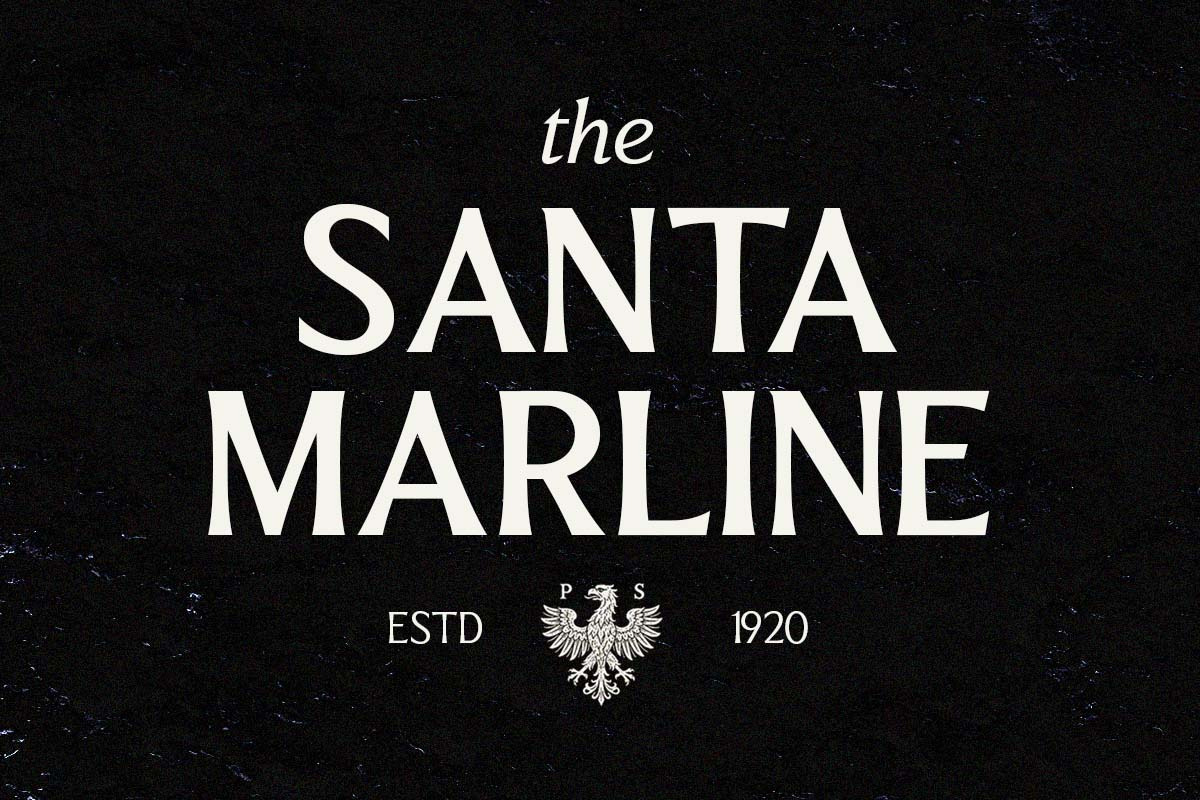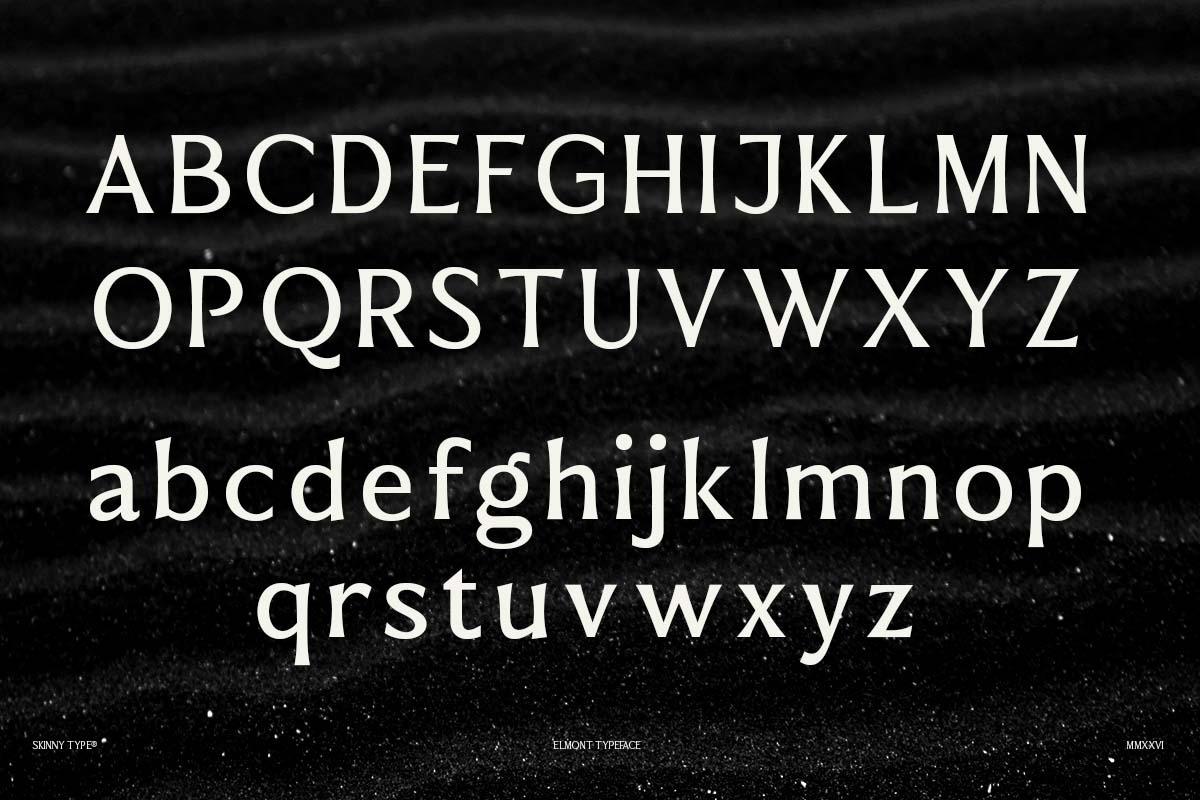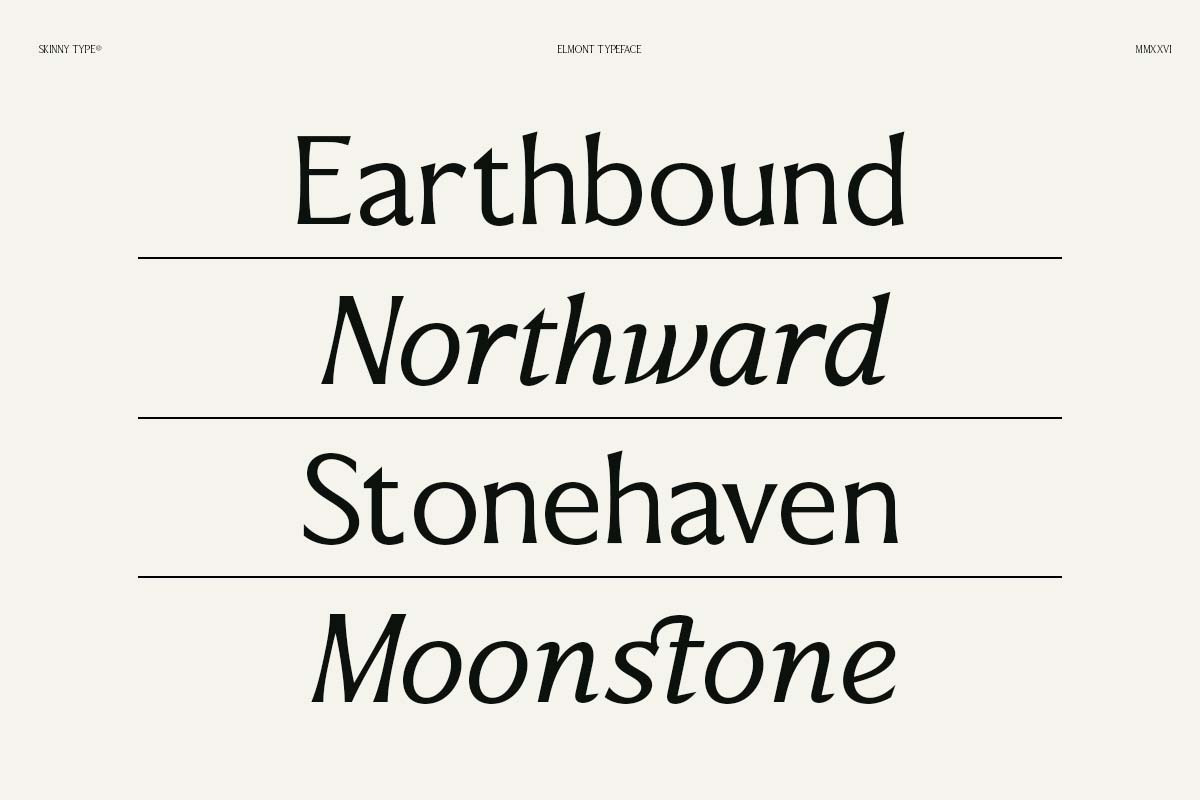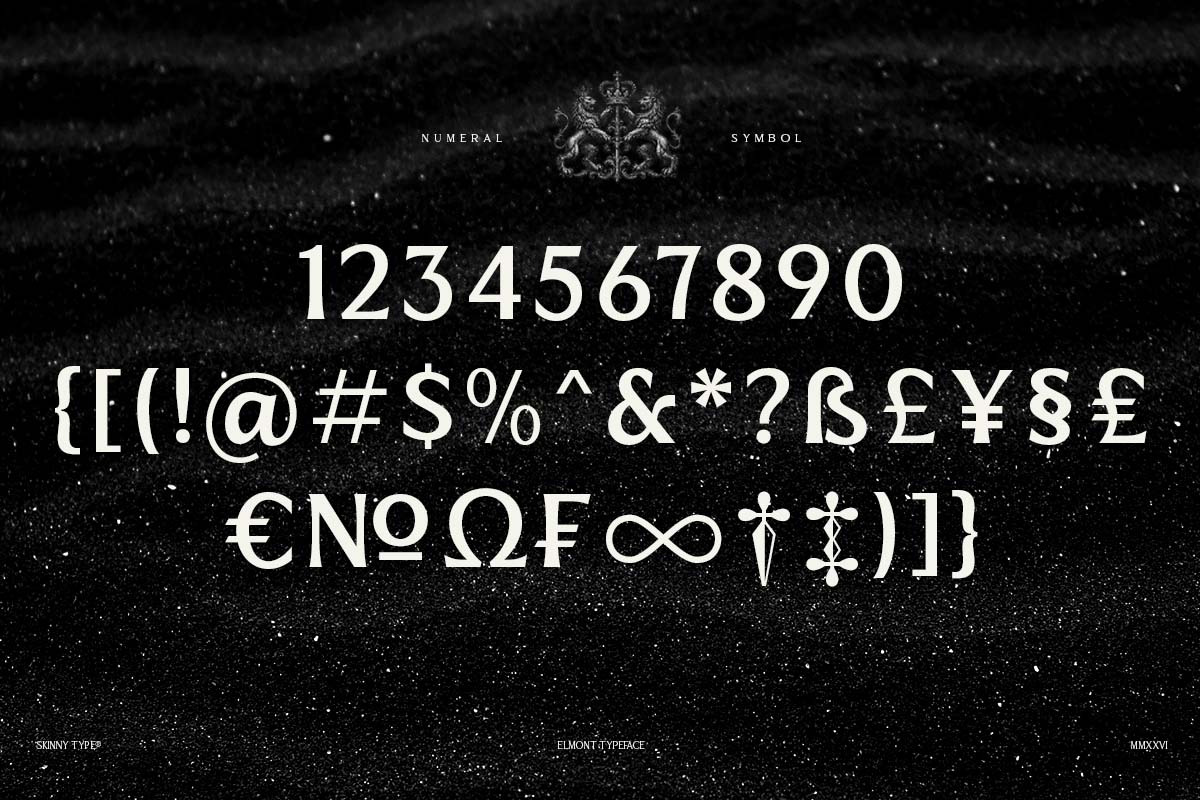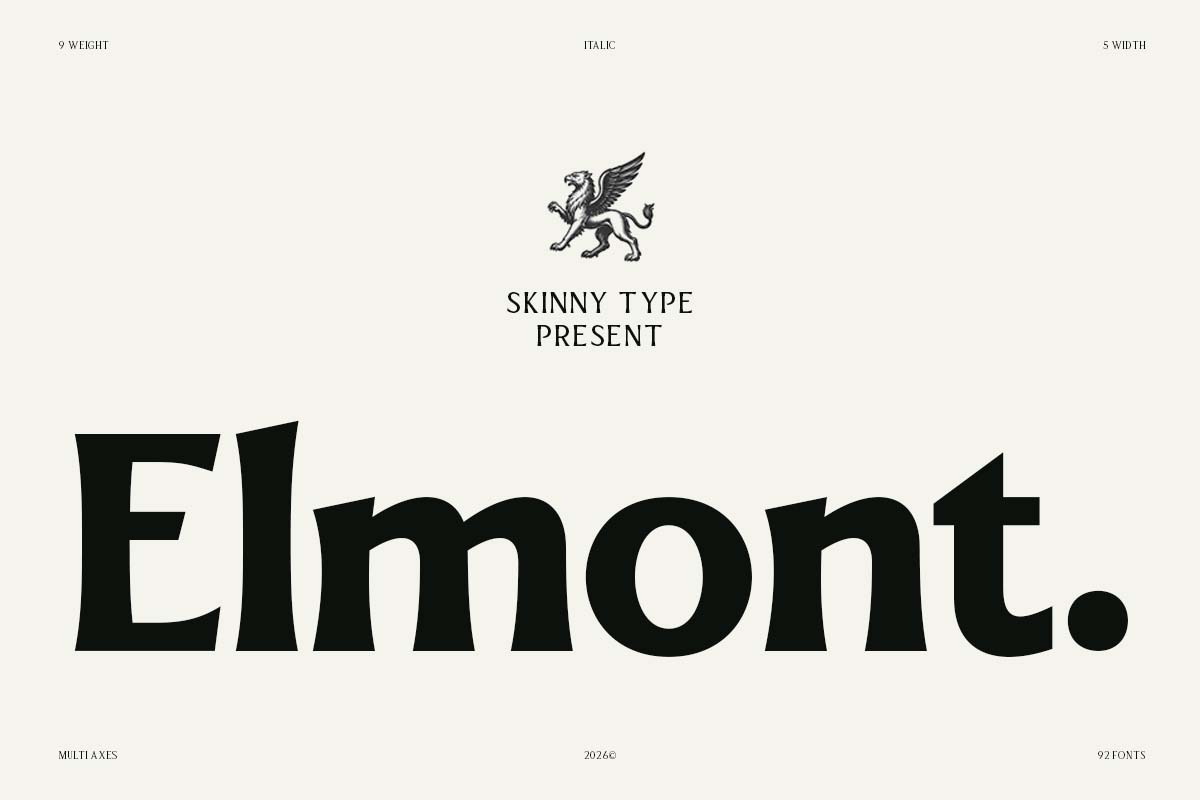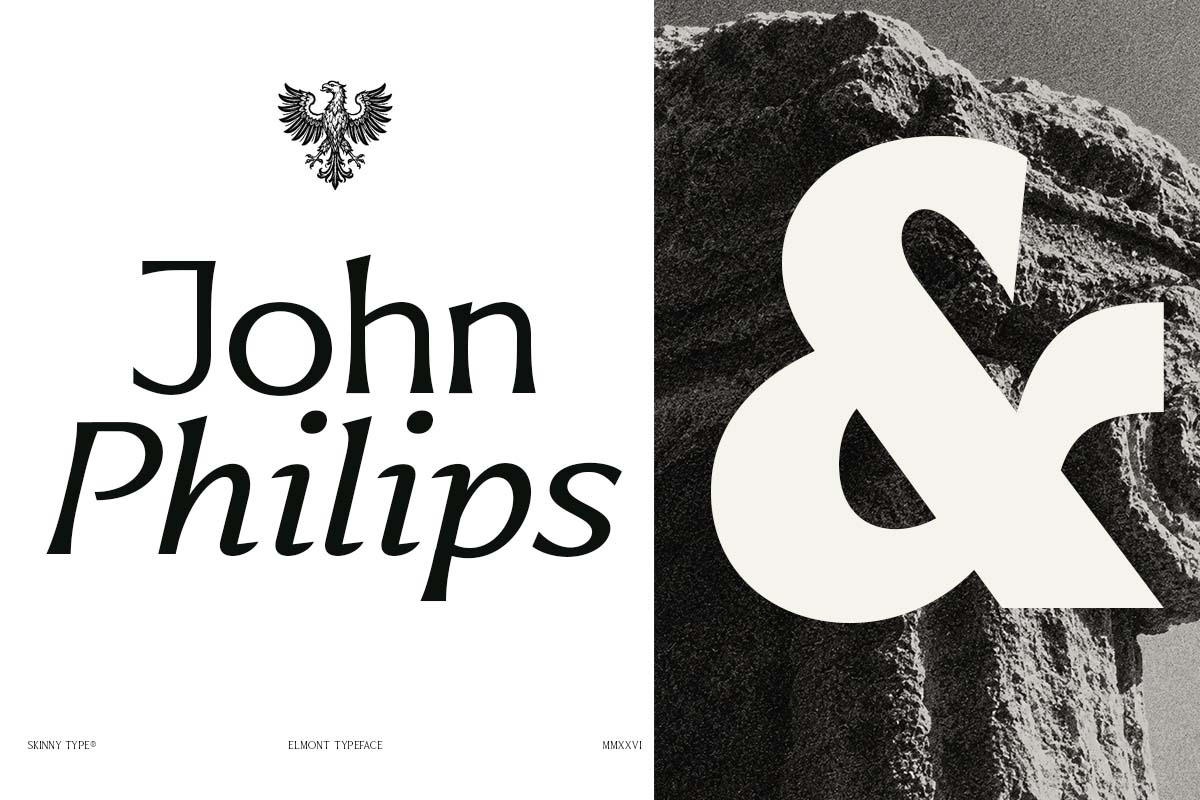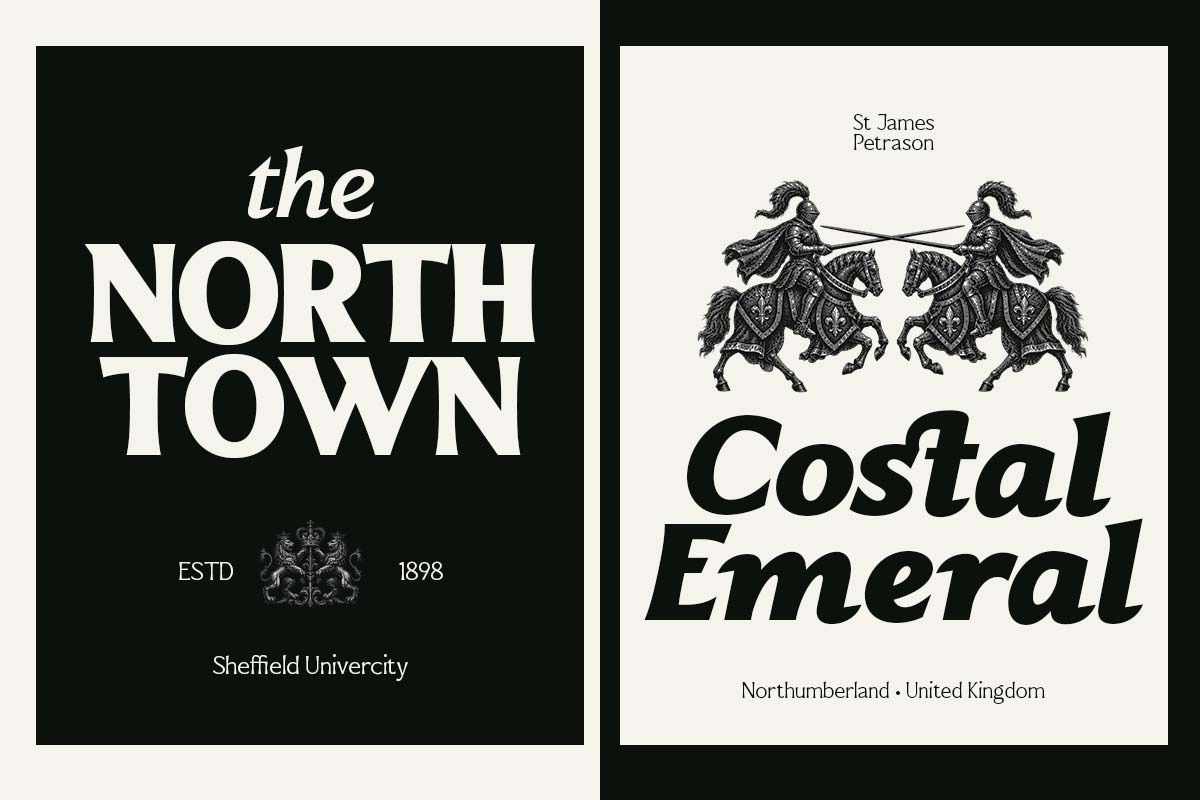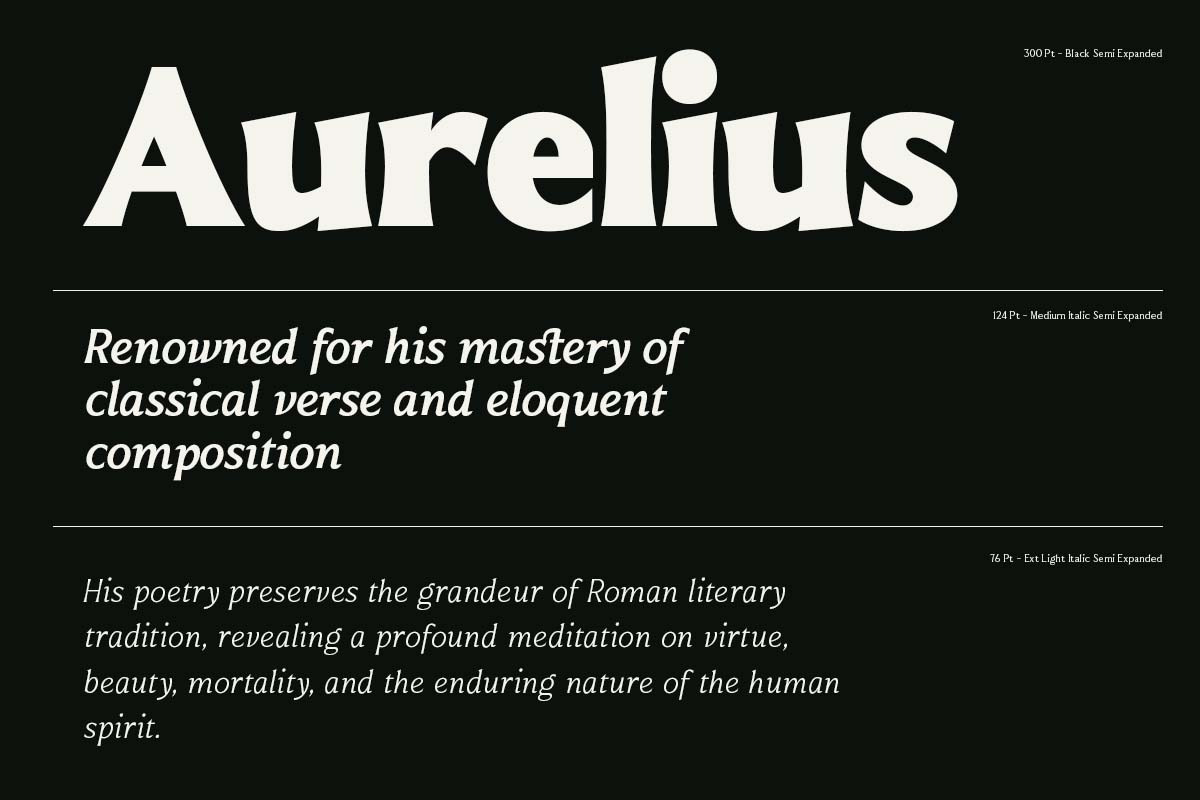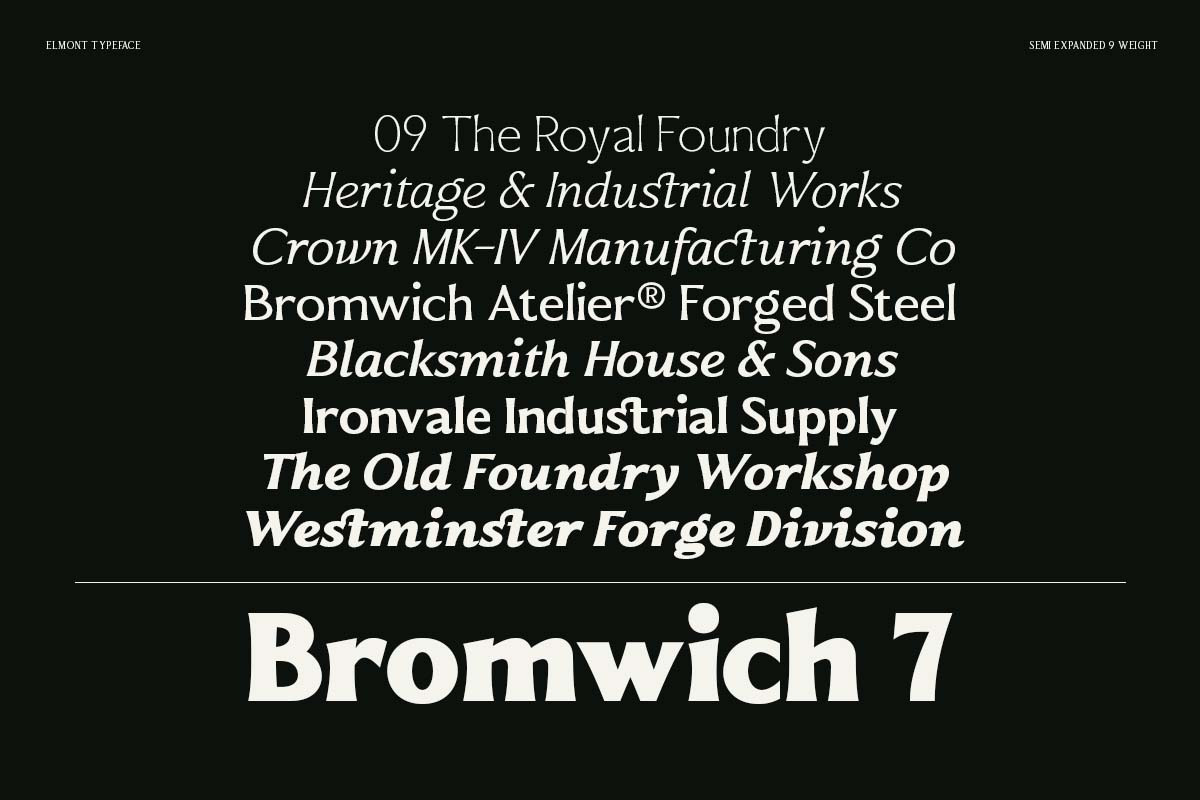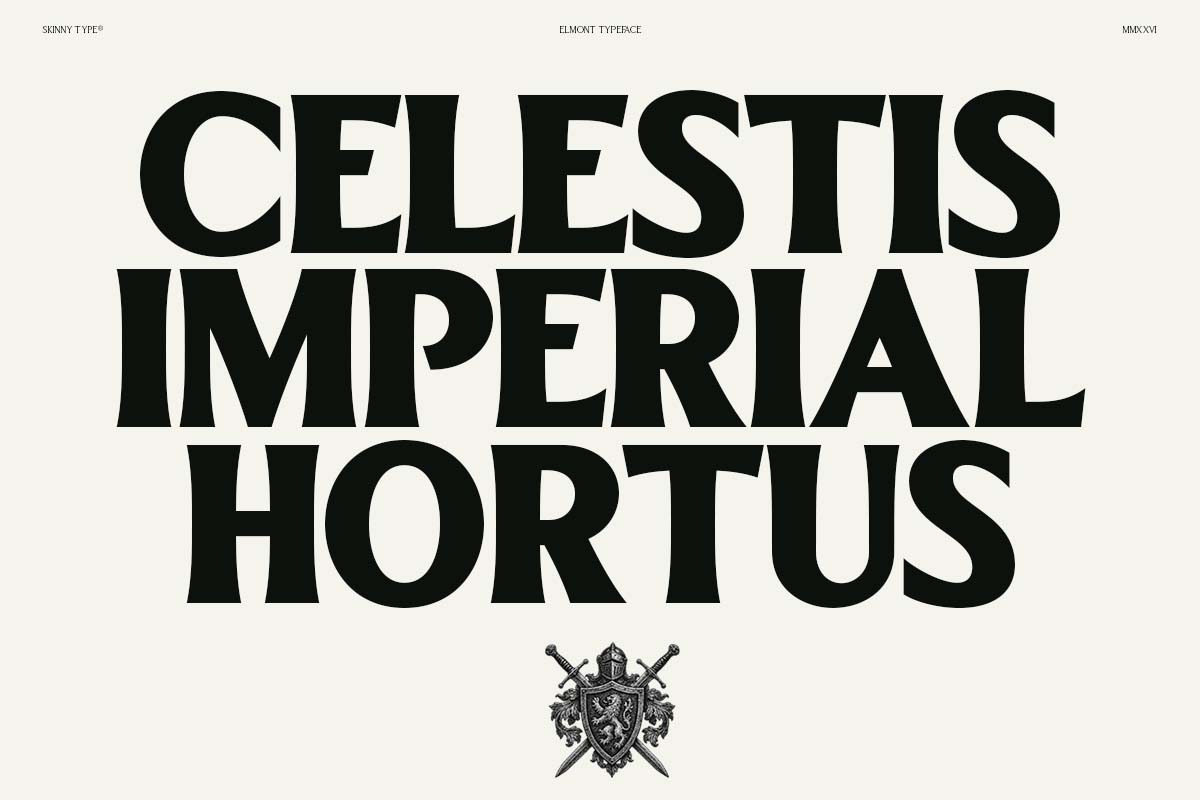
Elmont | 18 Fonts
Elmont® brings sculptural letterforms and expressive proportions together, creating a typeface with a distinctive presence and a refined sense of character.
We designed it to explore the space between classic display lettering and contemporary form, using broad proportions, controlled curves, and unexpected details to give each letter a strong individual identity. The shapes are expressive without relying solely on weight, allowing the typeface to feel confident while retaining a sense of elegance.
The inspiration comes from vintage signage, monumental lettering, and the bold visual language of classic display typography—letters designed to be noticed from a distance and remembered up close. Elmont takes that spirit and reshapes it for the present, giving it a more experimental and contemporary voice.